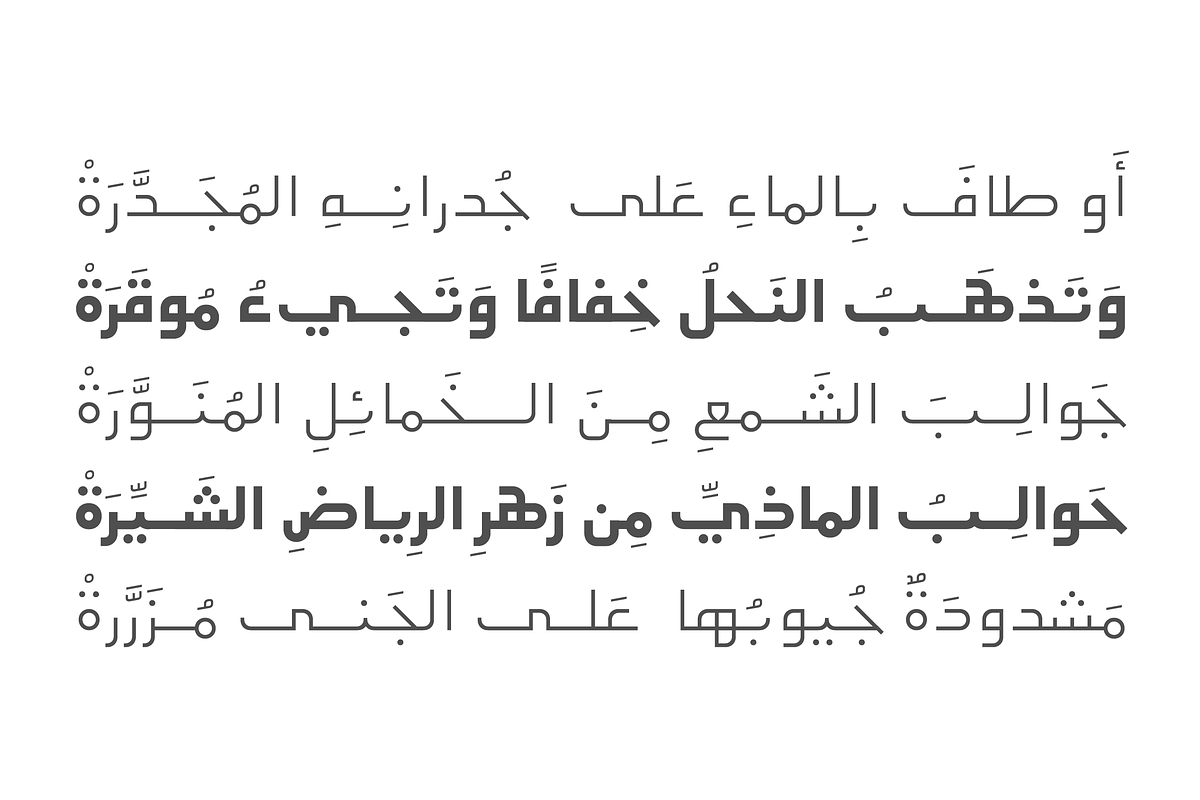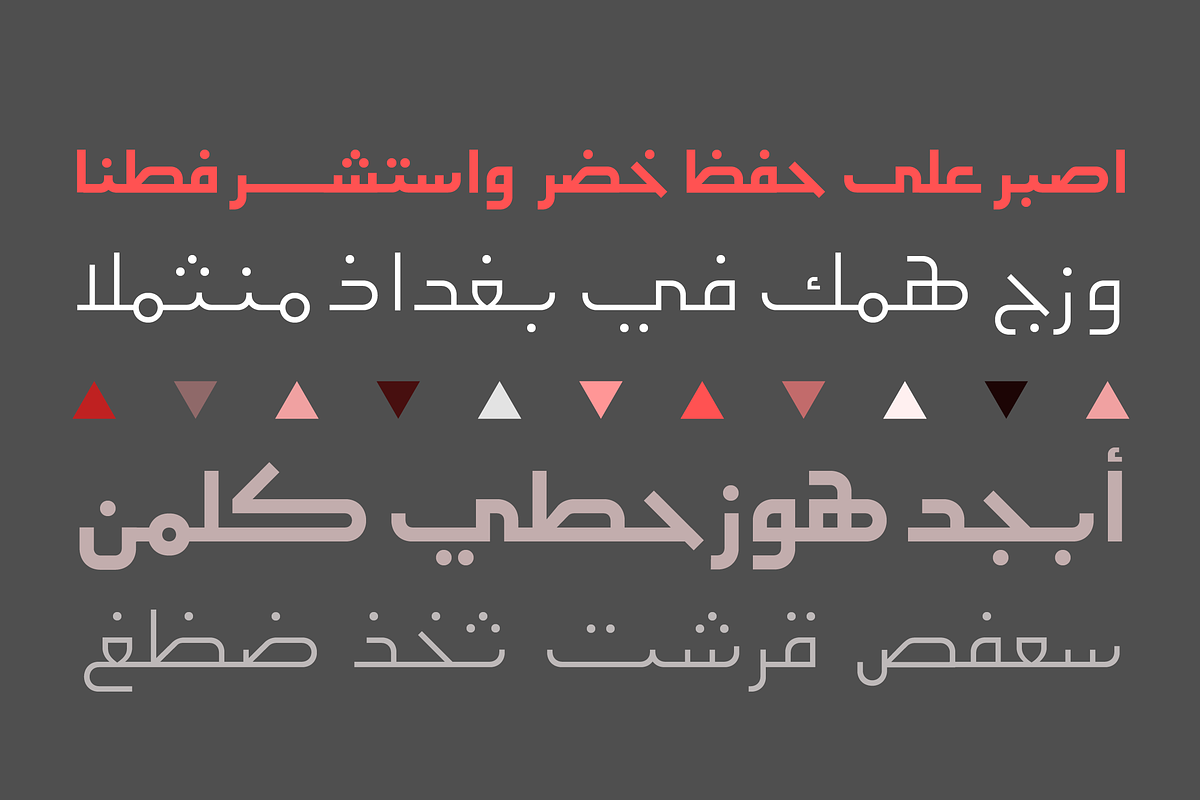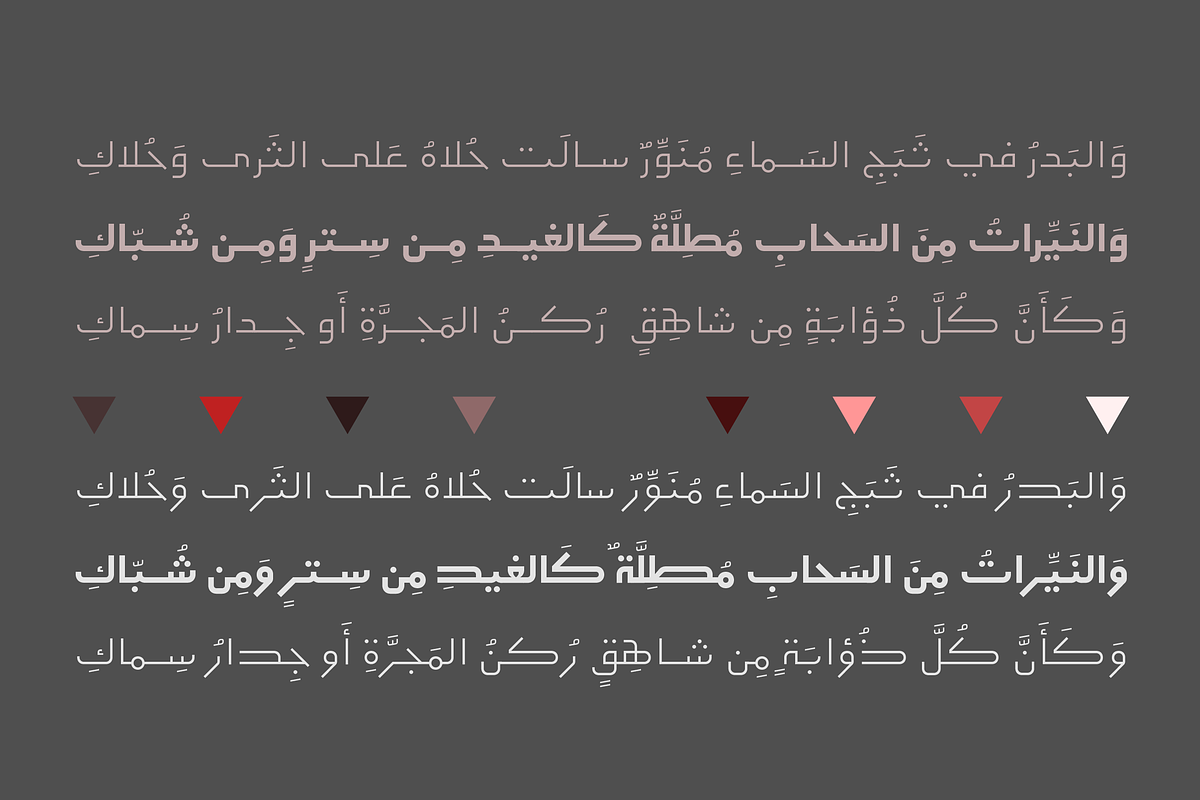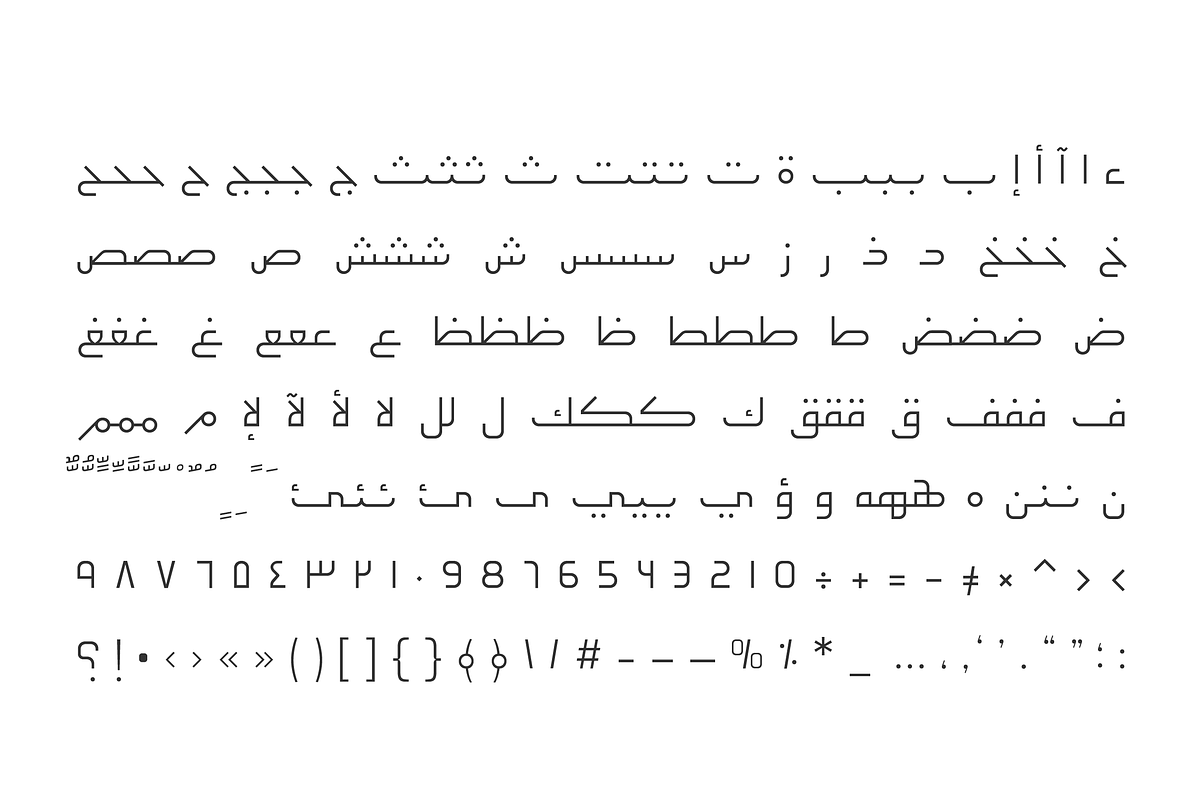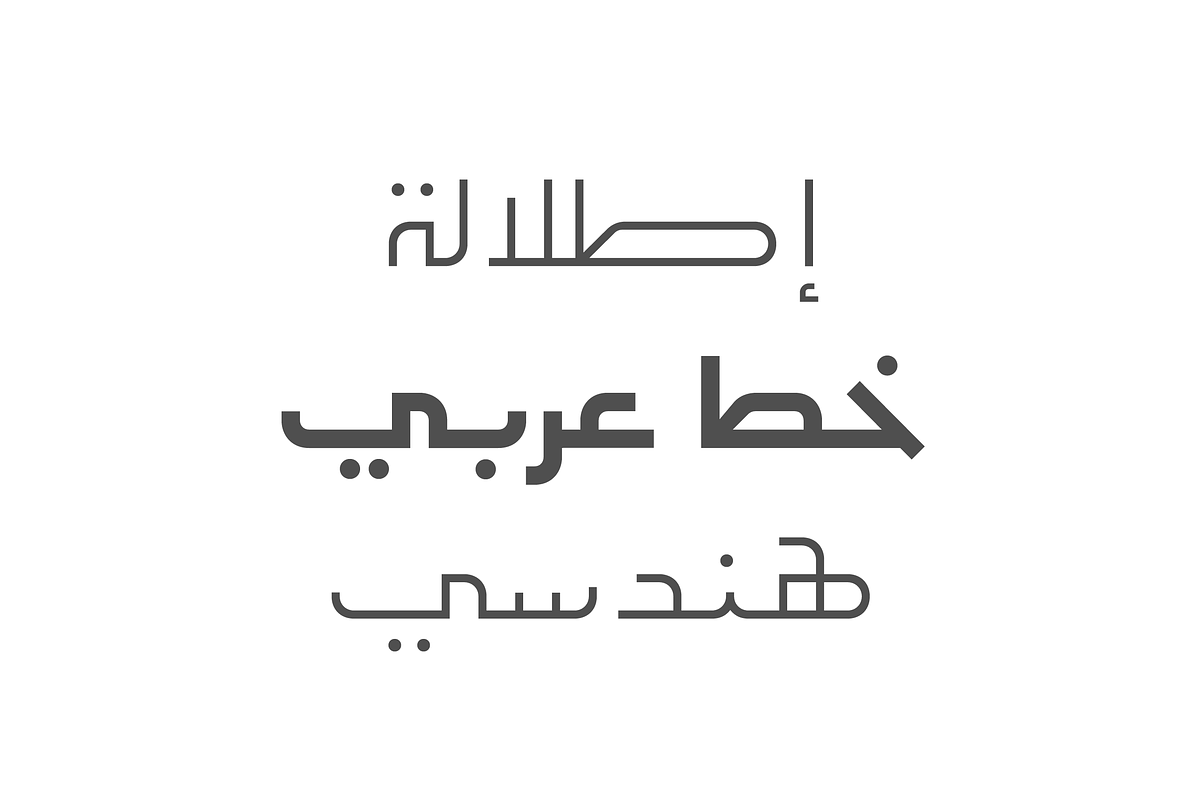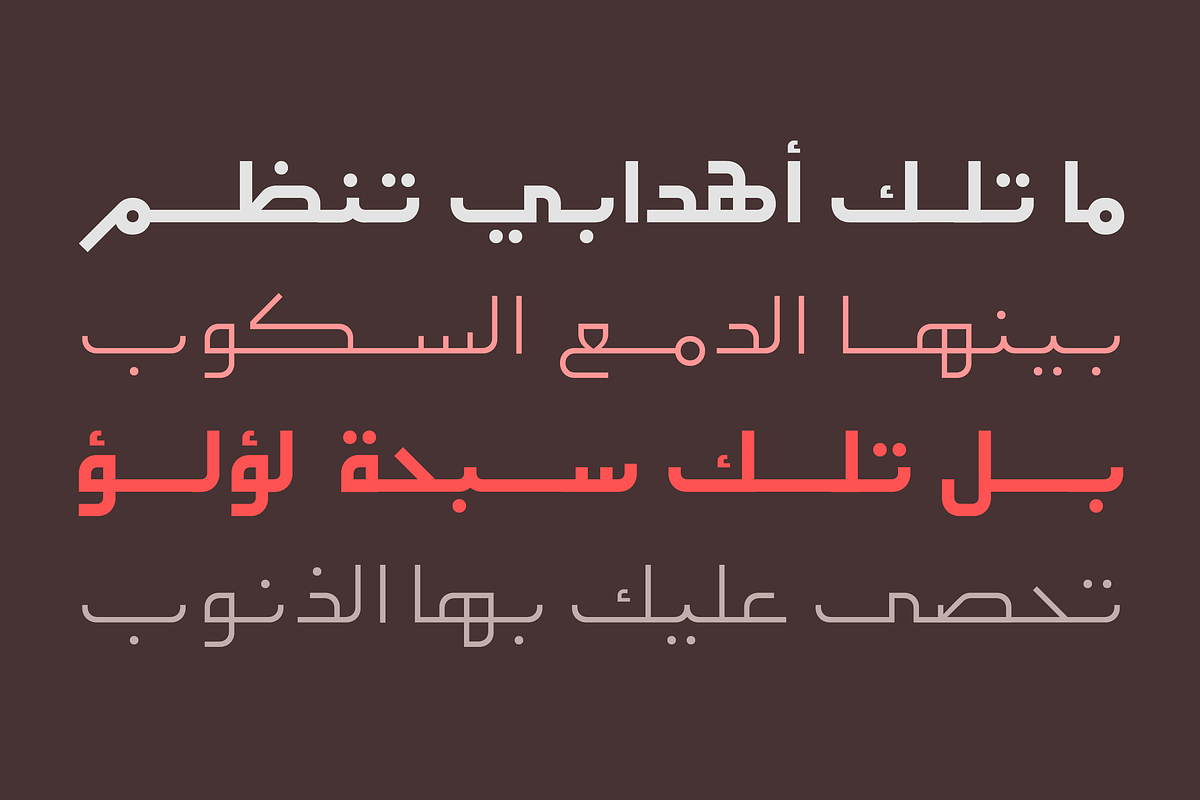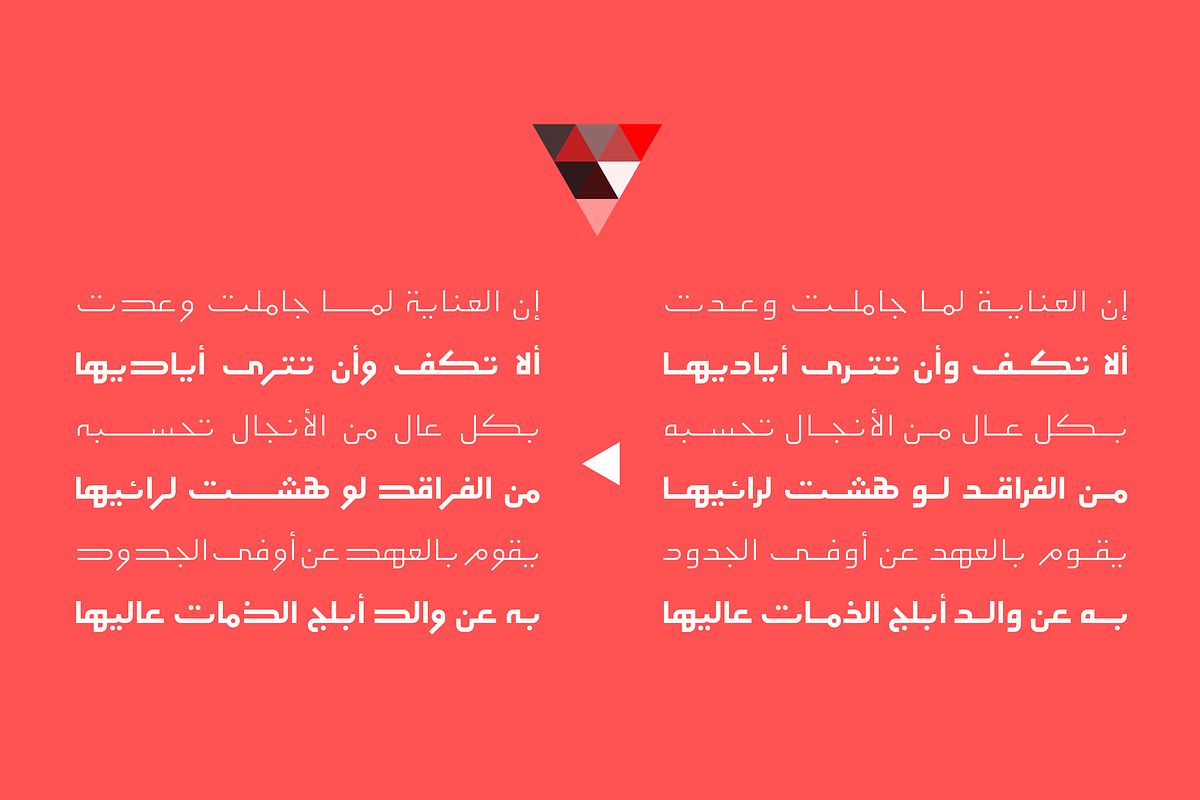
Etlalah - Arabic Font | خط إطلالة
Etlalah is an Arabic display font that blends modernity and simplicity with the authenticity of Arabic script. The font is suitable for branding, advertising, web and typographic compositions. It features a stylistic set and two weights; regular and bold.
- Etlalah Regular
- Etlalah Bold